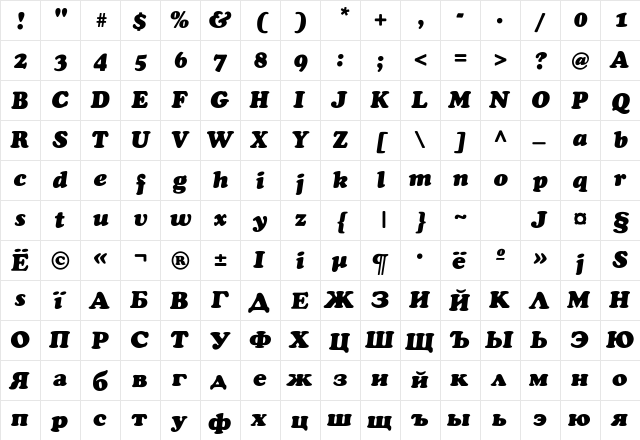
AGCooperCyr-Italic normal
Design Context for AGCooperCyr-Italic Typeface
AGCooperCyr-Italic is a composed and adaptable typeface that performs quietly and consistently across a wide range of design contexts. Its italic angle brings a sense of urgency and motion to the letterforms.
Pro Tip: Use AGCooperCyr-Italic for emphasis, pull quotes, and subheadings where its slanted energy can add rhythm to the layout.